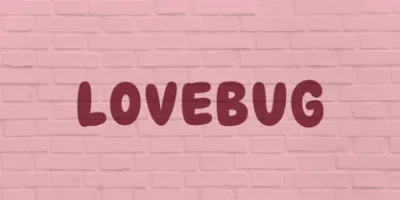
STM Lovebug Font
STM Lovebug Font is perfect for romantic greeting cards, Valentine's Day campaigns, wedding invitations, love-themed social media posts, children's book illustrations, cute café branding, playful baby shower materials, and whimsical romance novels. This adorable typeface brings warmth and affection to any design project celebrating love, relationships, and heartfelt connections.
What makes STM Lovebug Font exciting is its irresistibly charming personality that perfectly captures the playful side of romance and innocent affection. The rounded letterforms feature adorable curves and friendly proportions that create an instantly lovable appearance. Each character radiates joy and sweetness, making it the ideal choice for brands and projects that celebrate love in all its beautiful forms, from puppy love to lifelong partnerships.
The STM Lovebug Font family includes regular weight with complete uppercase and lowercase letters, numbers, punctuation marks, and special characters. Many versions feature additional heart-themed decorative elements, romantic symbols, and playful alternates that enhance the loving aesthetic and provide creative flexibility for romance-centered designs.
Whether you're creating heartfelt greeting card collections or designing romantic marketing campaigns, STM Lovebug Font offers unlimited potential for love-inspired projects. This endearing typography choice transforms ordinary text into emotional connections that touch hearts and create lasting impressions. The font's friendly nature ensures excellent appeal across various romantic occasions while maintaining its distinctive loveable character that makes every design project feel like a warm embrace filled with genuine affection and joy.